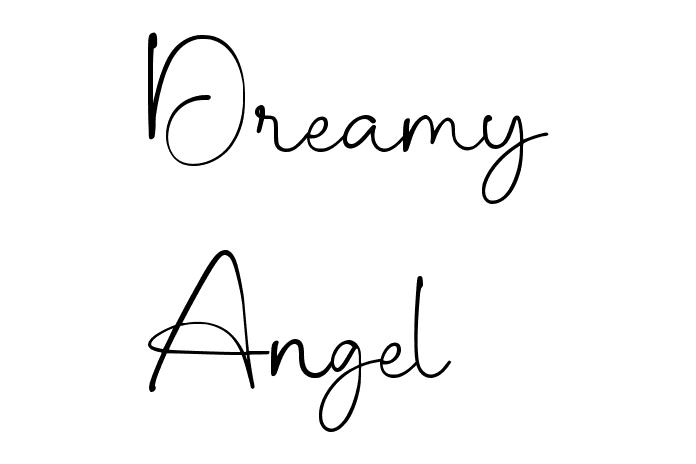
Playlist-Script
Playlist font is a free Script font that can be used for any purpose; personal and commercial. It is suitable for wedding invitations, greeting cards, illustrations, quotes, posters, t-shirt designs, etc.
Font designer Artimasa